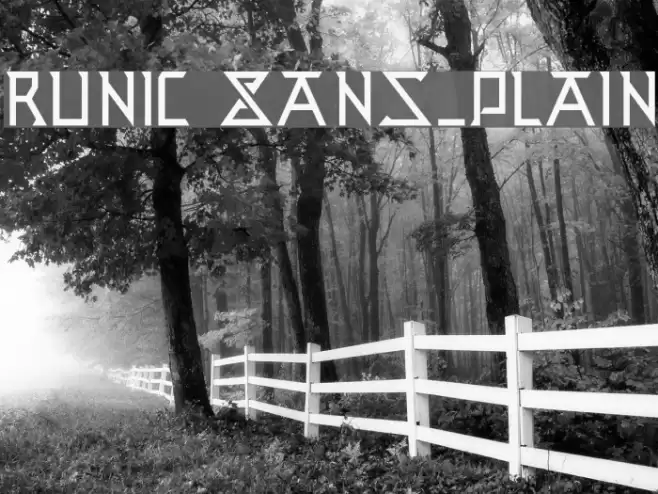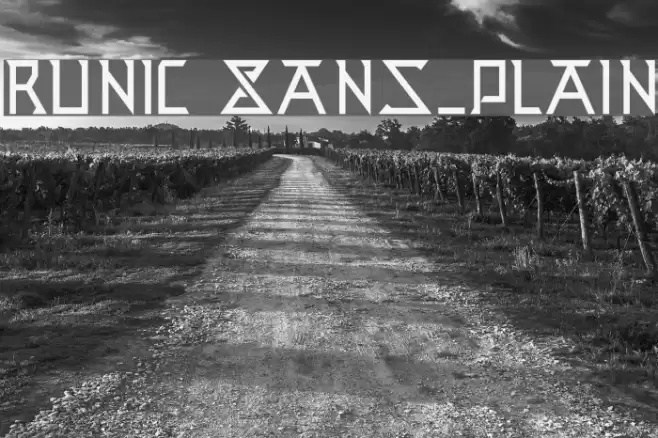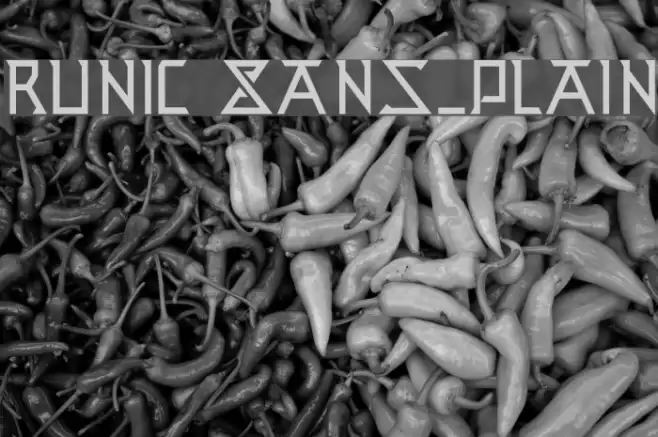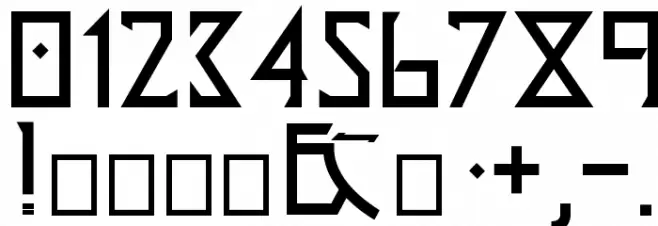
Runic Sans_Plain Font
Runic Sans_Plain Description
This font features a unique blend of geometric and angular shapes, reminiscent of ancient runic symbols. The characters are constructed with sharp, straight lines and pointed edges, giving it a distinct and bold appearance. The uppercase and lowercase letters maintain a consistent style, with a uniform height and width that enhances readability. The numbers and special characters follow the same design principles, ensuring a cohesive look throughout. This font's striking design makes it ideal for projects that require a touch of historical or mystical flair.
A geometric, angular font inspired by ancient runic symbols from Uncategorized fonts.